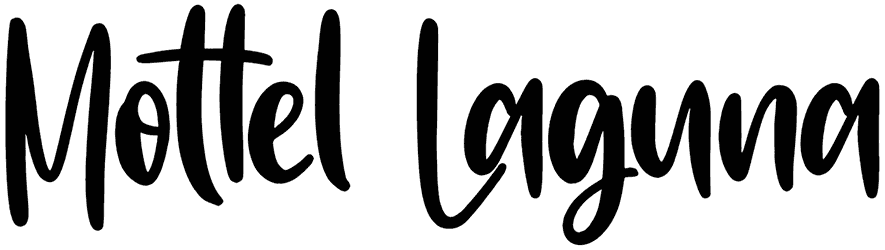
Mottel Laguna Font
If you feel that you face a lack of a reliable source of inspiration, a magical script font such as Mottel Laguna can be your savior.
Aside from not supporting numbers, this masterpiece comes with crooked and chunky letters, so it can be very well matched with a huge set of creative ideas like illustrations, storybook covers, flyers, menus, or social media posts. Due to its unique style, it carries a vibe of personalization, tenderness, jauntiness, or drama.